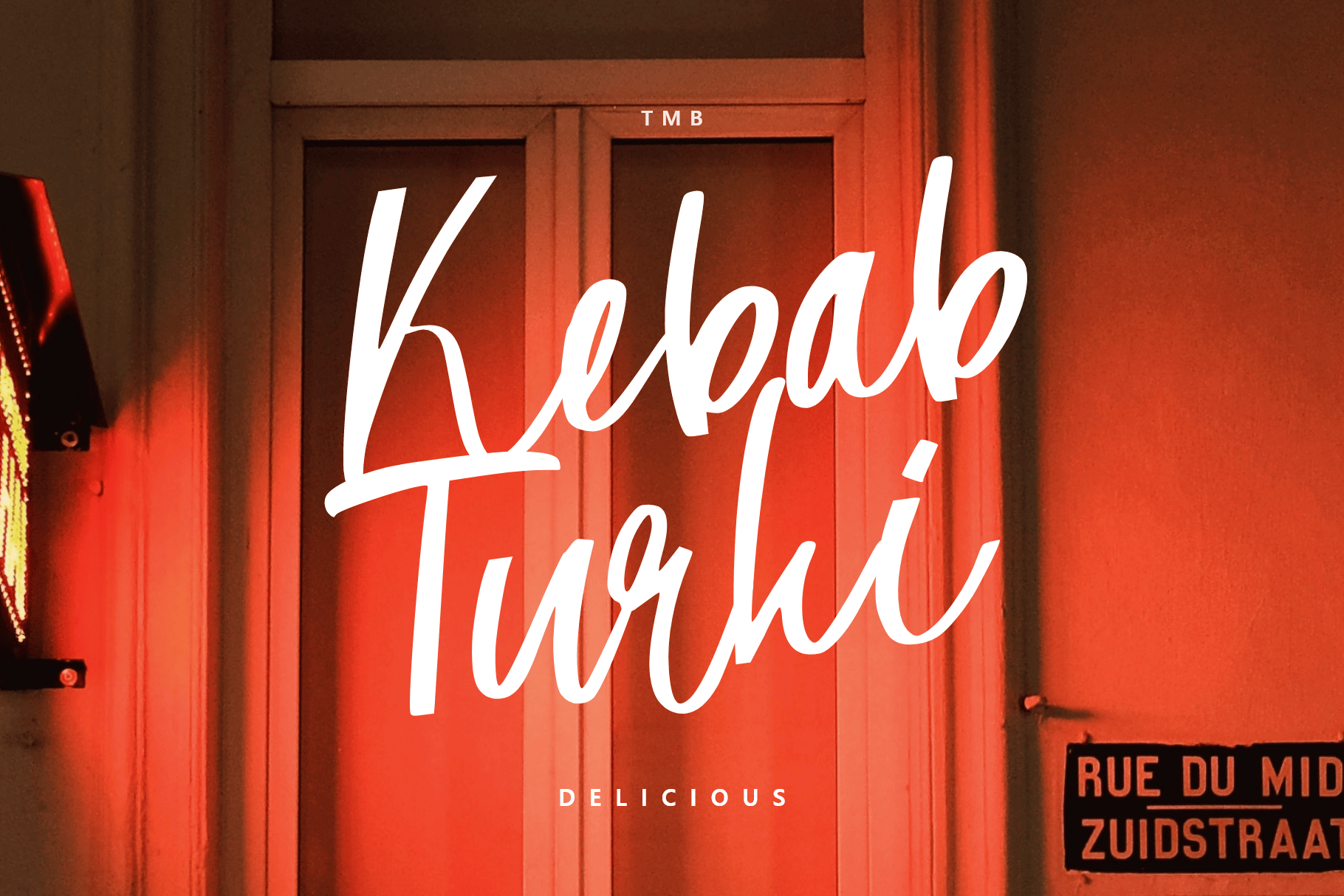
Gula & Teh Font
Gula & Teh Script Font
Gula & Teh Script Font is modern script font, made with natural strokes that will make every word beautiful. This typeface works great for Logos and Clothing Designs. It’s also great for making Molds or Merchandise.